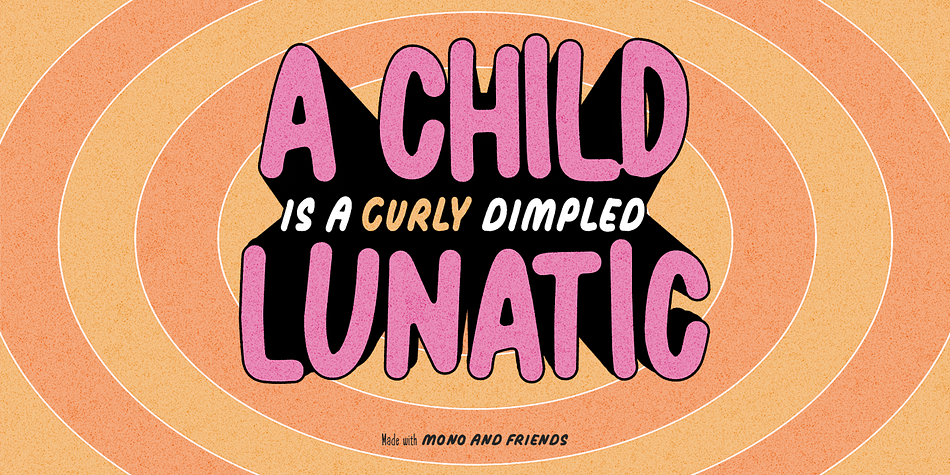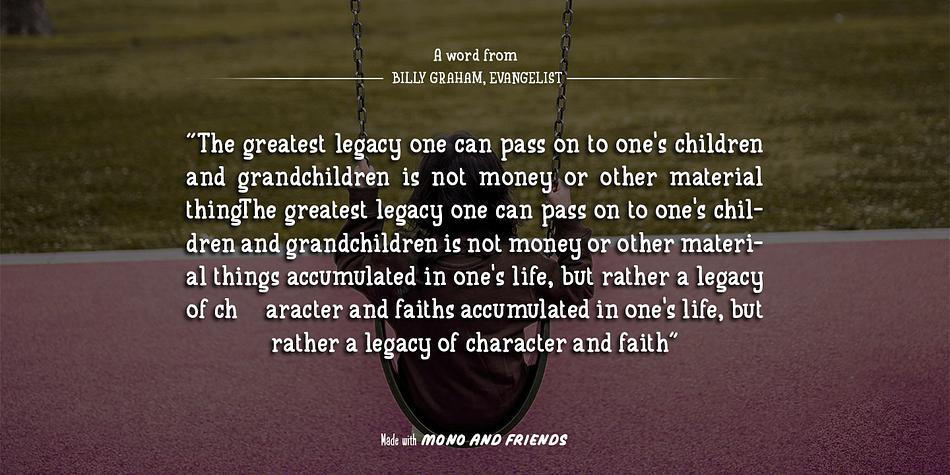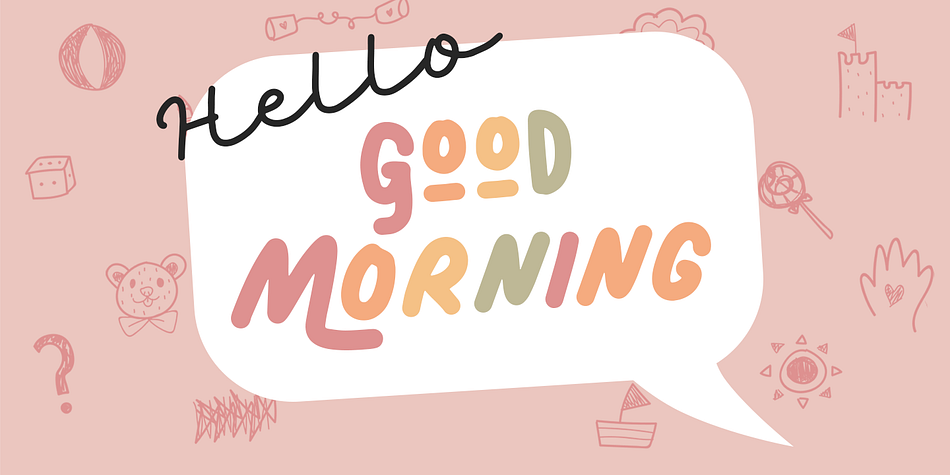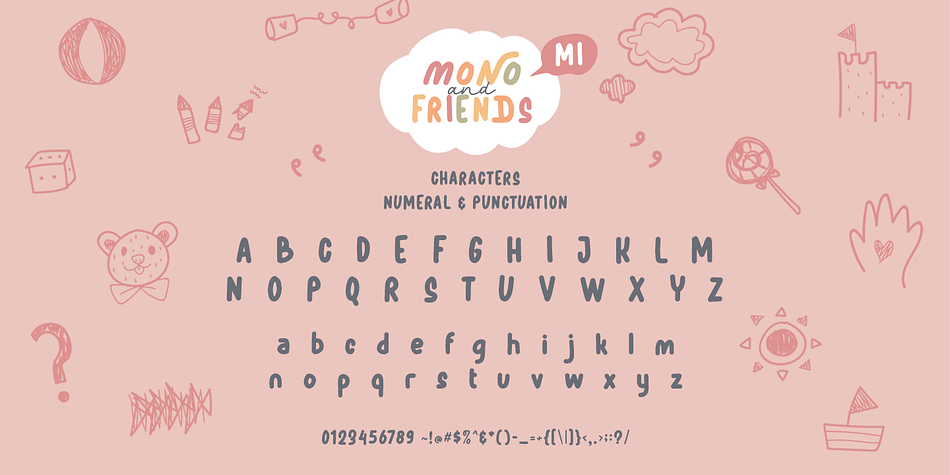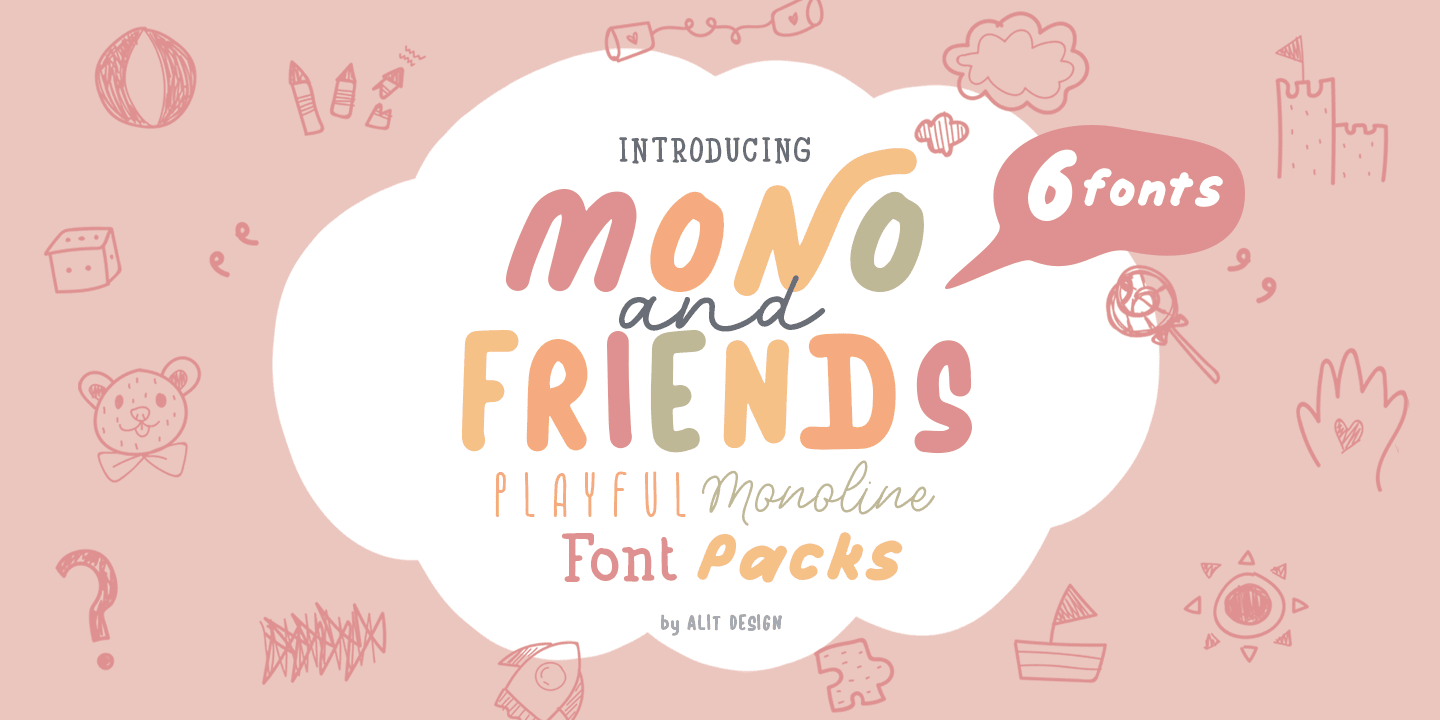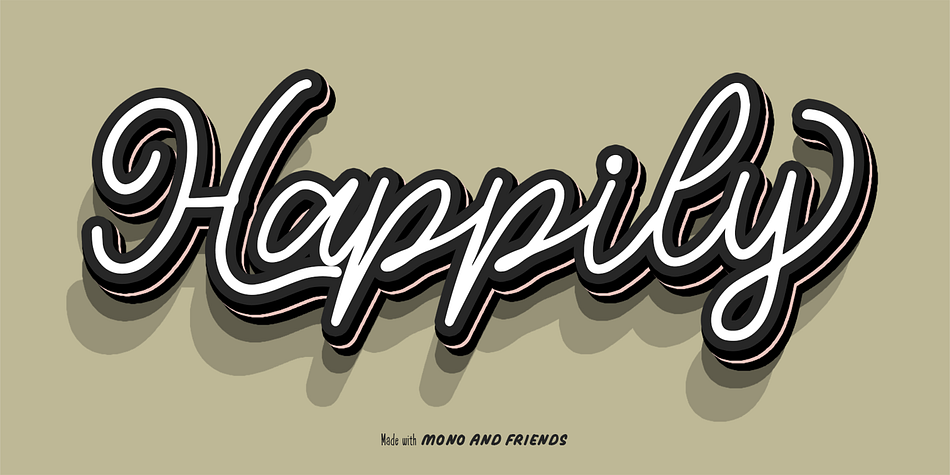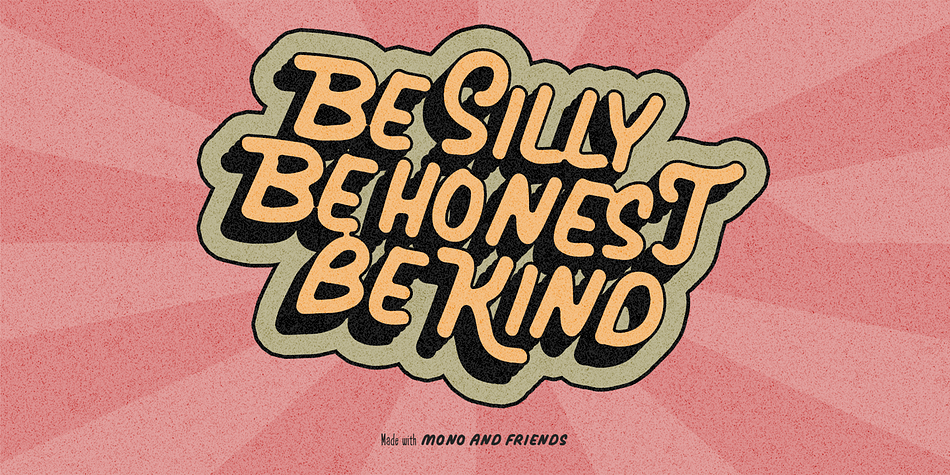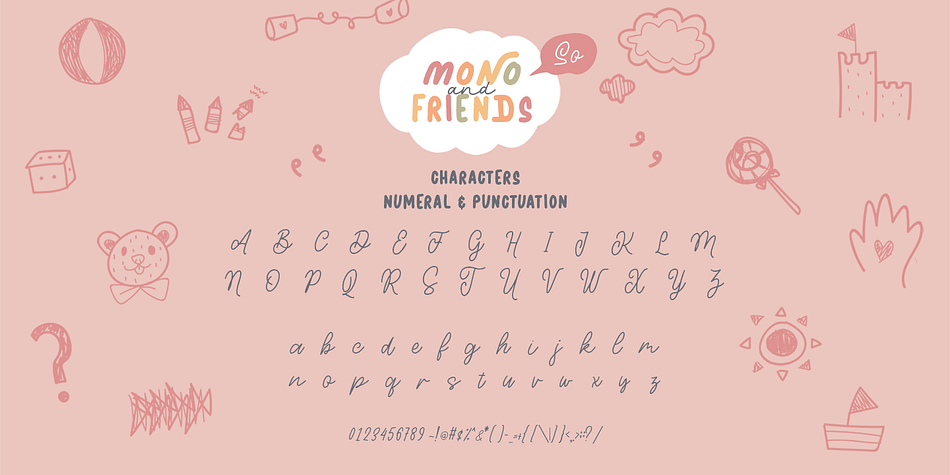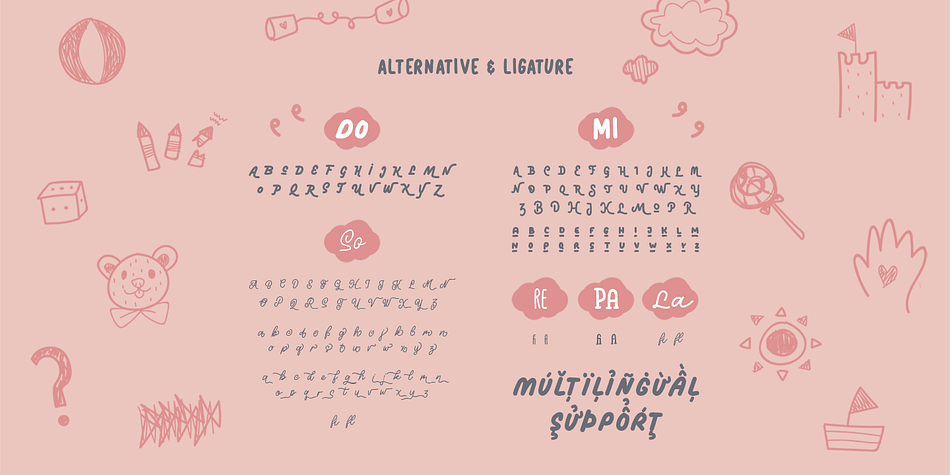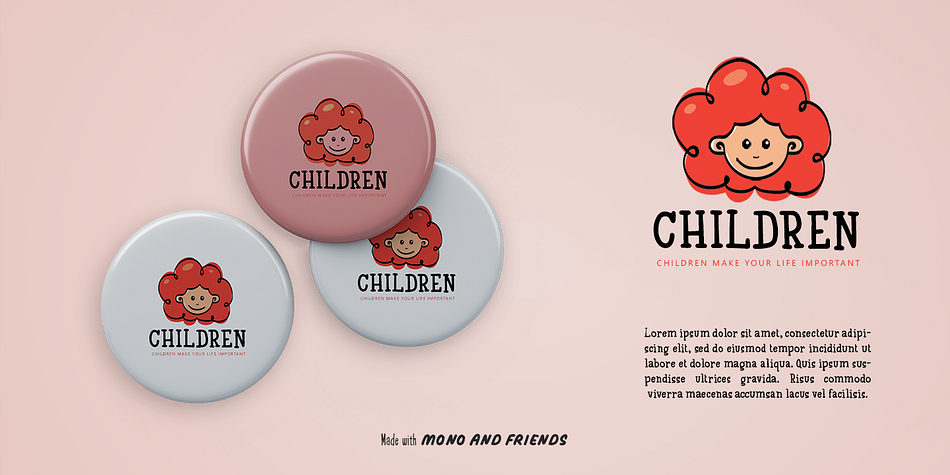
Mono and Friends
Designed by Alit Suarnegara, Mono and Friends is a hand display, hand drawn and script font family. This typeface has six styles and was published by Alit Design.
Mono and Friends font is inspired by monoline style font. Mono and Friends consists of 6 unique and cool family packs. Especially if it is combined between several fonts. You get a cool font package for design projects that are non-formal, funny, kidy and so on.